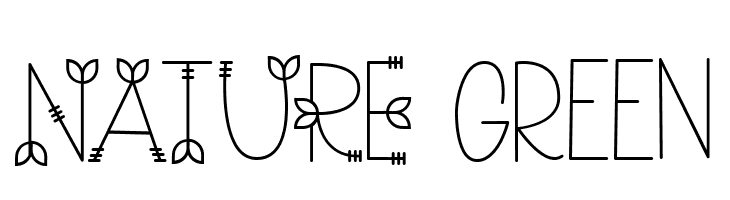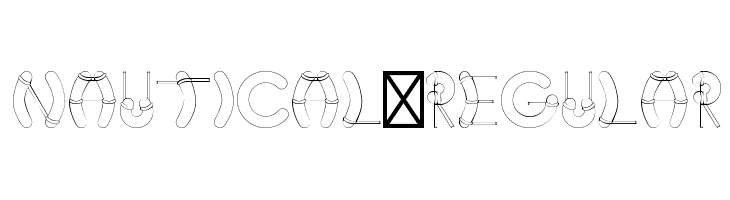
( Fonts by Letterena Studios )
A whimsical, nature-inspired font with decorative uppercase and clean, handwritten lowercase letters.
( Fonts by Letterena Studios )
A whimsical, nature-inspired italic font with leaf-like details.
A bold, decorative font with a playful, pipe-like design.
( Fonts by flaiordai )
A playful, nautical-themed font with rope-like elements and outlined characters.
( Fonts by www.tepidmonkey.net )
A modern, playful font with unique curves and clean lines.
( Fonts by www.houseoflime.com )
A bold, decorative font with characters enclosed in circular badges, reminiscent of vintage typewriter keys.
A bold, decorative font with intricate circular patterns creating a modern and striking appearance.